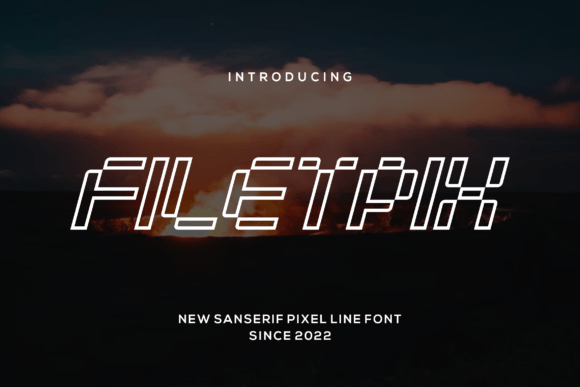
**Introducing Filetpix — The Font that Encapsulates the Spirit of Sports**
Step into the realm of athletic prowess and fierce determination with Filetpix, the captivating display font engineered to ignite the flame of sportsmanship in every design. Every curve, every angle, every stroke encapsulates the essence of competition, exuding both grace and raw power.
Whether you're crafting logos that embody the agility of a cheetah or posters that resonate with the thunderous roar of the crowd, Filetpix is your weapon of choice. Its crisp lines and sharp angles lend an air of precision and speed, perfectly mirroring the lightning-fast reflexes and calculated strategies that define the world of sports.
But Filetpix isn't just about aesthetics; it's a testament to the indomitable spirit that drives athletes to push their limits. Its bold strokes evoke the determination to overcome any obstacle, while its sleek silhouette represents the elegance and poise that accompany victory.
With Filetpix, your designs will not merely convey information — they'll ignite passions, fuel dreams, and leave an unforgettable mark on the hearts of all who behold them. So, embrace the champion within and let Filetpix guide you to the pinnacle of sports-inspired design.
Don't settle for ordinary fonts that blend into the background. Choose Filetpix, the font that embodies the very essence of sports, and let your designs soar to new heights.
**Features that Make Filetpix a Game-Changer:**
* Modern and futuristic design
* Perfect for sports logos, posters, and branding
* Crisp lines and sharp angles convey speed and precision
* Bold strokes represent determination and strength
* Sleek silhouette exudes elegance and poise
Unlock the full potential of your sports-related designs with Filetpix, the font that captures the essence of athleticism and inspires greatness. Experience the thrill of victory with every project you create.